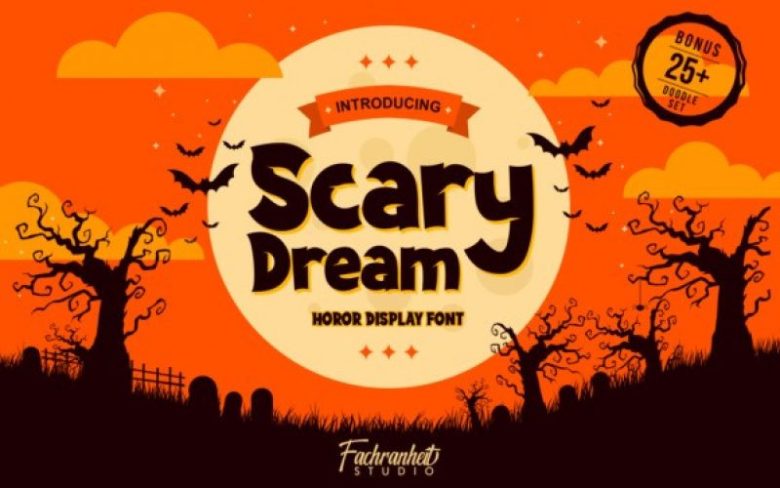
Scary Dream Display Font
Scary Dream is a bold display font, carefully handcrafted to become a true favorite. Spooky and unique, it will be the perfect choice for each of your Halloween designs!